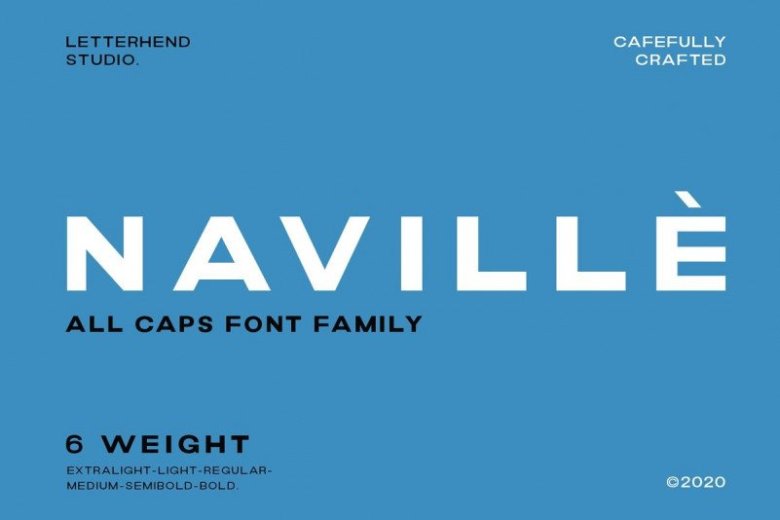
Navillè Font Family
Introducing, Navillè Sans, the all caps font family. This family has 6 weights – extra light, light, reguler, medium, semibold and bold.
The clean and simplicity look of the font suitable for wide range of graphic needs especially for headline, title, sign board, information board, billboard and for UI/UX design.